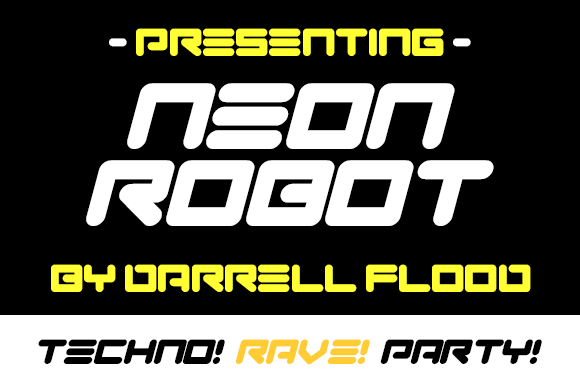
Introduction to Neon Robot Font
Have you ever been in the middle of a creative project, staring at a blank screen, and suddenly, an idea strikes you? The excitement is palpable, and your imagination starts racing. This is exactly what happens when you come across the Neon Robot Font – a bold, thick lettered, and futuristic display font that’s sure to elevate your designs.
Whether you’re working on a sports-related design, a racing or speed-inspired project, or simply want to add a touch of futurism to your next creative endeavor, the Neon Robot Font is the perfect design resource. With its high-quality and versatile style, it’s no wonder why designers are going crazy about this free download. The transparent background allows for seamless integration into any design, making it an invaluable asset for your next project.
Key Features of Neon Robot Font
- High-quality, pixel-perfect design for a futuristic and edgy look, perfect for creative projects.
- Designed with a unique blend of neon and robot elements, creating a one-of-a-kind design resource for any project.
- Includes multiple styles and variations, allowing for endless creative possibilities and a high degree of customization.
Honest Review: Neon Robot Font
I recently stumbled upon the Neon Robot Font and I must say, it’s a game-changer for any creative project. This font is perfect for adding a touch of futuristic flair to your designs.
What works well: ✨ High-quality design, ✨ wide range of glyphs, and ✨ transparent background options make it a valuable resource for designers.
- Wide range of glyphs, including uppercase and lowercase letters, numbers, and punctuation
Overall, I’m thoroughly impressed with the Neon Robot Font. Its unique design and versatility make it a valuable addition to any design resource library. If you’re looking for a high-quality font to take your creative projects to the next level, I highly recommend giving this a try.
The Neon Robot Font is ideal for use in creative projects such as logos, posters, and social media graphics. It’s also great for use in presentations, documents, and websites. The font’s futuristic and robotic design makes it perfect for science fiction, technology, and gaming-related projects.